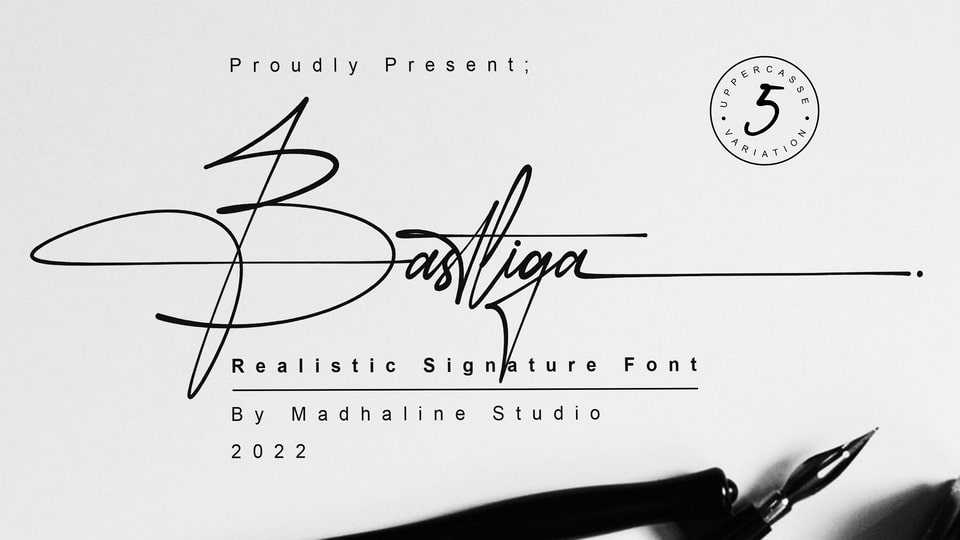
Bastliga Signature Font › Fontesk – Download Grátis
Download Bastliga font, a signature typeface that has its own uniqueness and characteristics, because it is handwritten manually, so it has the impression of a true signature. Bastliga font is carefully crafted with a modern touch.